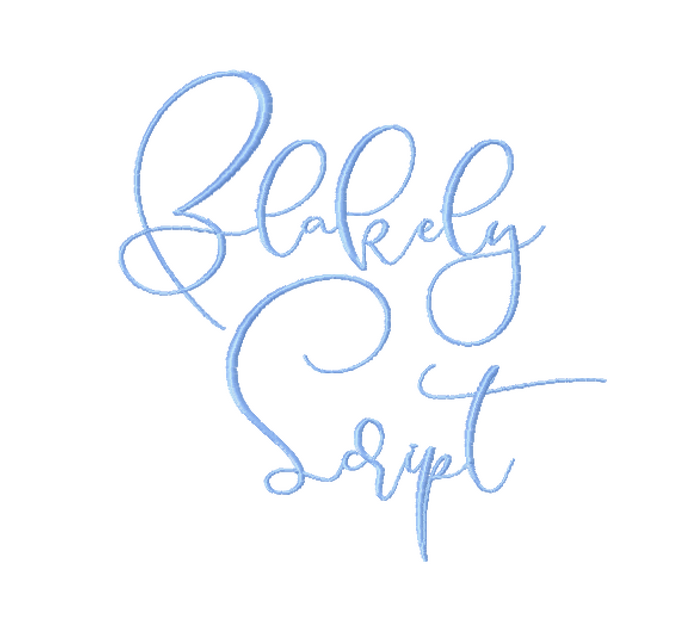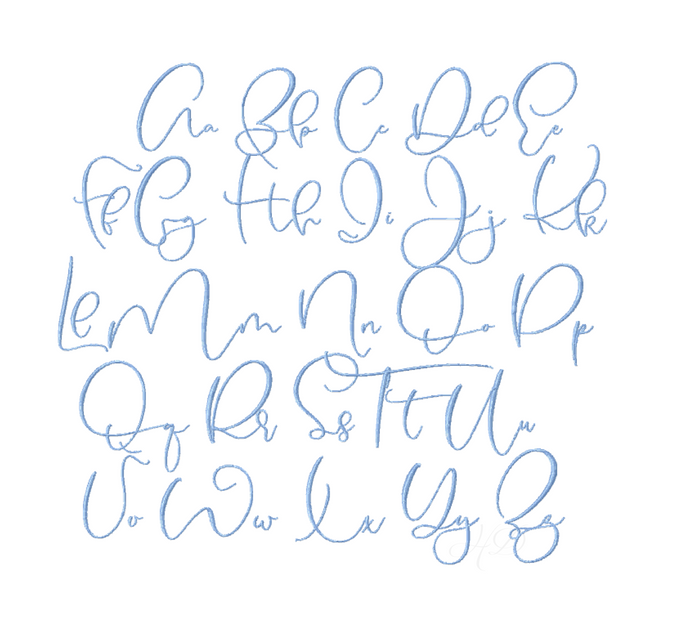
Blakely Script Embroidery Font - 6 Sizes
Introducing the Blakely Script Embroidery Font package, featuring six elegant sizes to provide the perfect personalized touch to your embroidery projects. This modern handwriting style is designed for crafters who appreciate unique design elements. The sizes included are 1", 1.5", 2", 2.5", 3", and 3.5". Note that sizes 3 and 3.5" may require a 5x7 hoop for complete letters.